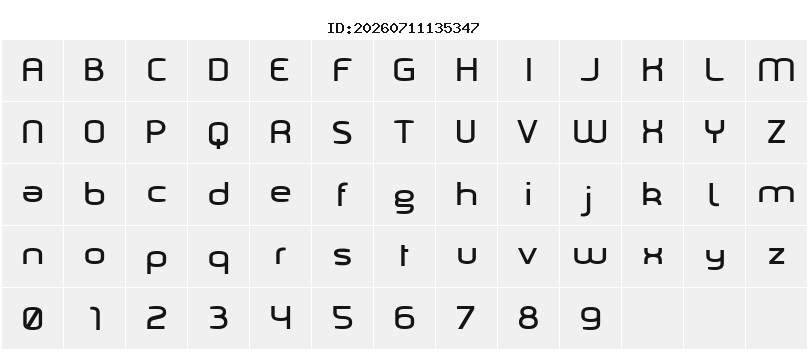
Marilou Preview
• Font Name: Marilou
• Font Style: Marilou
• Full Font Name: Marilou
• Designer: Beno”t Sjšholm
• Manufacturer: Beno”t Sjšholm
About Marilou.ttf
Marilou.ttf is a modern, elegant sans-serif font designed for ultimate readability and visual harmony. Perfect for branding, headlines, web design, and print materials.